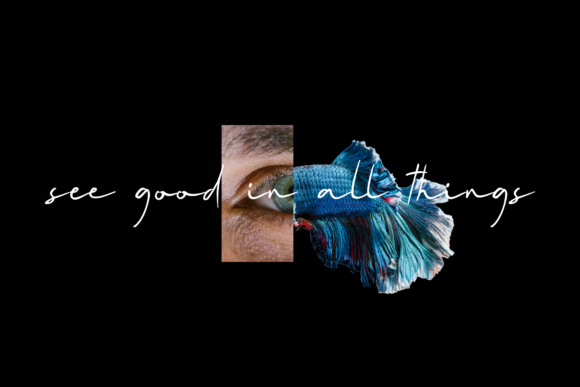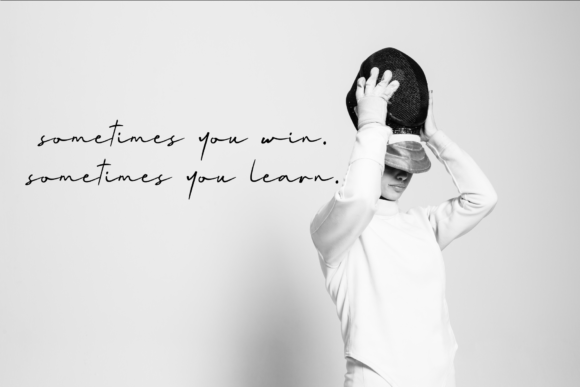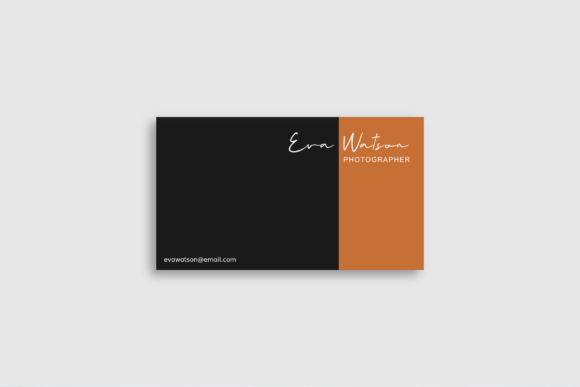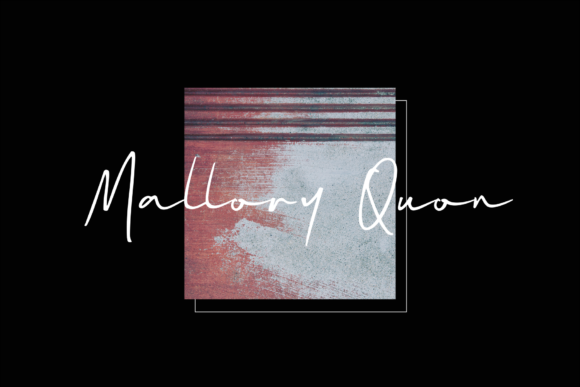
Introduction to Mallory Quon Font
The Mallory Quon is an amazing signature script font.
Itβs perfect for branding, logos, quotes, prints, website and more .
- β High quality design for professional projects
Why Choose Mallory Quon Font?
Mallory Quon Font offers exceptional quality and versatility, making it a valuable addition to your design toolkit. Whether you’re creating for personal projects or commercial use, Mallory Quon Font delivers professional results.